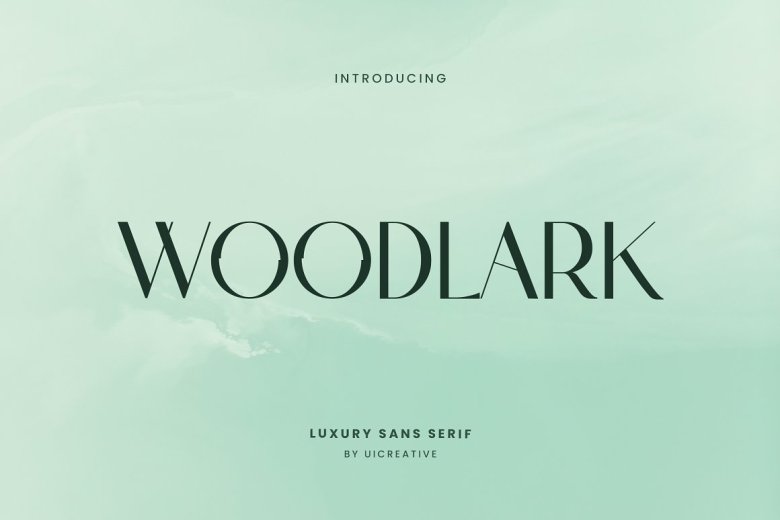
Woodlark Font
The elegant modern Woodlark is a sans serif font. It feels beautiful, elegant and modern. This font is perfect for use in all sorts of projects such as signature, stationery, logos, wedding invitations typography quotes on the internet authentic Japanese kana characters that end up giving you something very much like a piece of art; blogs! Fashion-related branding and editorial promotion is in both ways male and female.
Woodlark Sans Serif Font